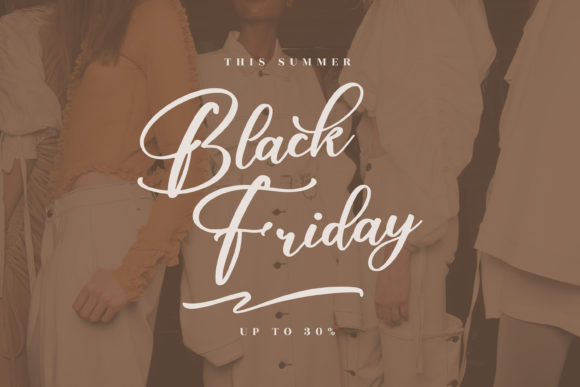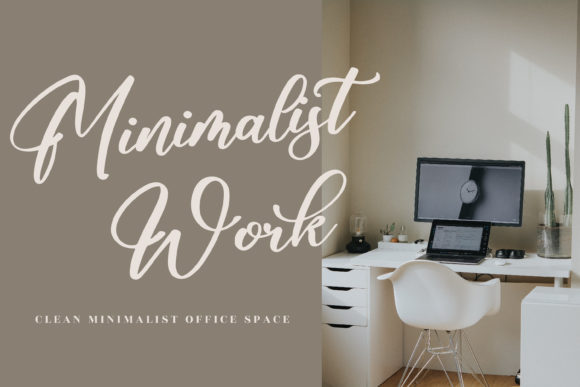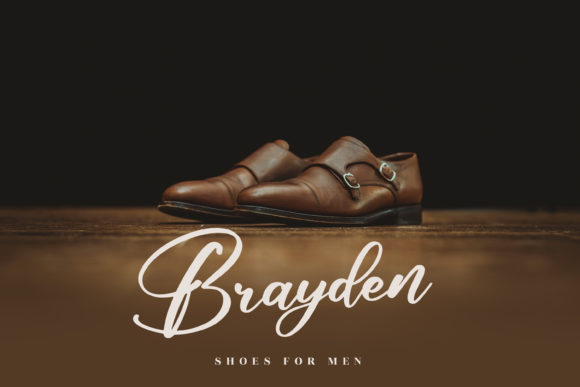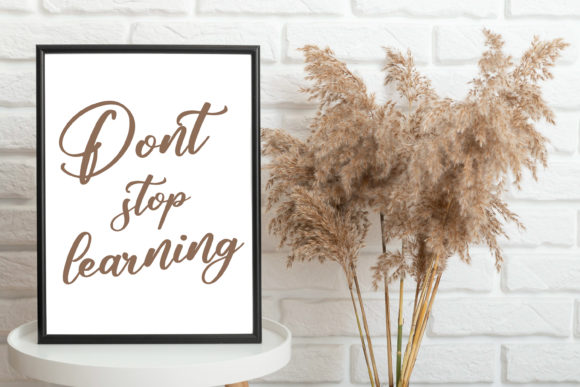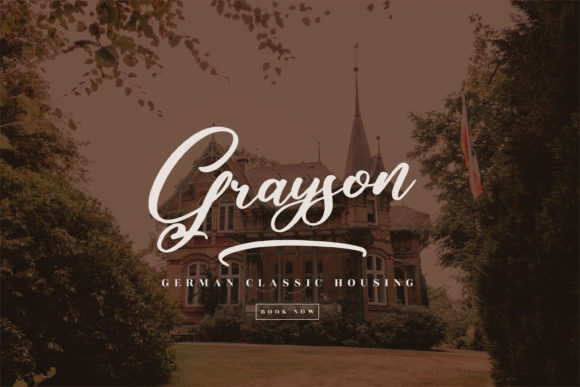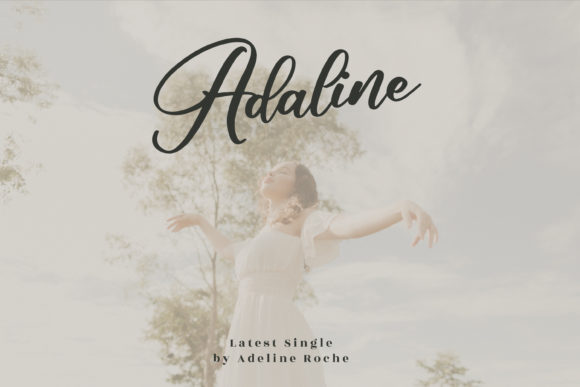
Alisha Cintia Font: Bringing Whimsy to Your Designs
Have you ever sat at your desk, staring at a blank page, and felt a sudden urge to add some playfulness to your design? Maybe it’s the perfect opportunity to let your creativity shine and add a dash of personality to your project. That’s exactly what happened to me when I stumbled upon the delightful Alisha Cintia Font.
Alisha Cintia is a charming script font that brings a sense of joy and whimsy to any design. Its beautiful, flowing characters seem to dance along the baseline, adding a touch of elegance and sophistication to any project. As a designer, you’ll appreciate the fact that Alisha Cintia is PUA encoded, making it easy to access all the glyphs and swashes you need to create stunning designs.
Alisha Cintia Font Key Features
- Font Family: Alisha Cintia is a script font with elegant, handwritten characteristics.
- Size: The font family includes a range of weights from Thin (100) to Black (900) with corresponding font sizes.
- Resolution: Optimized for print and digital use at high resolutions (up to 300 DPI).
- Unique Characteristics: Features include swashes, ligatures, and alternate characters for added flair and customization.
Alisha Cintia Font Review
I recently had the chance to work with the Alisha Cintia font, and I’m excited to share my honest review with you.
- ✨ Elegant and refined feel: The Alisha Cintia font has a sophisticated and luxurious look that’s perfect for high-end branding and design projects.
- ✨ Versatile: This font can be used for a variety of purposes, from titles and headings to body text and even logos.
- ✨ Good readability: The font’s letterforms are clear and well-spaced, making it easy to read even at smaller sizes.
- ⚠️ Limited character set: The Alisha Cintia font has a relatively small character set, which may limit its use in certain languages or contexts.
- ⚠️ Not ideal for body text: While the font is great for titles and headings, it may not be the best choice for large blocks of body text due to its elegance and refinement.
Overall, I think the Alisha Cintia font is a great addition to any designer’s toolkit. Its elegant feel and versatility make it perfect for a wide range of projects, but its limitations should be kept in mind when choosing a font for your next design.
Use Alisha Cintia Font to add a touch of elegance and sophistication to your designs. Experiment with different font sizes, colors, and alignments to create visually appealing effects.
Alisha Cintia Font is perfect for:
- Business cards and brochures.
- Event graphics and signage.
- Personal branding and marketing materials.
Alternatives to Alisha Cintia Font for Designers
Lato is a modern sans-serif font designed by Łukasz Dziedzic. It is suitable for various design projects, including logos, headings, and body text. Lato is a clean and elegant font that is highly legible in digital and print media. It is a good alternative to Alisha Cintia Font for designers who want a more minimalist and sophisticated look.
Comparison: While Alisha Cintia Font has a more playful and cursive feel, Lato is more formal and modern. Lato is also more versatile and can be used in a wide range of design contexts, making it a more practical choice for designers.
Montserrat is a sans-serif font designed by Julieta Ulanovsky. It is inspired by the urban typography of Buenos Aires and is suitable for design projects that require a strong, modern feel. Montserrat is a good alternative to Alisha Cintia Font for designers who want a font that is both stylish and highly legible.
Comparison: While Alisha Cintia Font has a more feminine and elegant feel, Montserrat is more masculine and urban. Montserrat is also more versatile and can be used in a wide range of design contexts, making it a more practical choice for designers.
Merrweather is a classic serif font designed by Eben Sorkin. It is suitable for design projects that require a traditional, elegant feel. Merrweather is a good alternative to Alisha Cintia Font for designers who want a font that is both sophisticated and highly legible.
Comparison: While Alisha Cintia Font has a more modern and playful feel